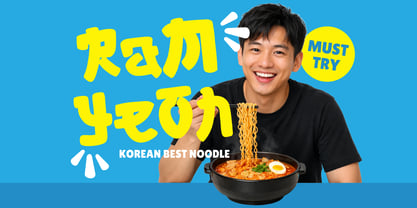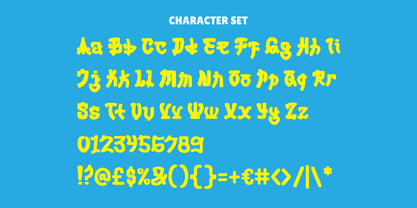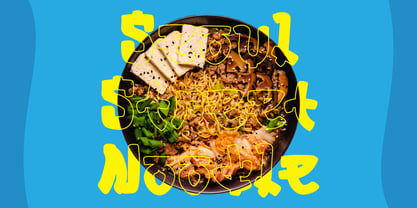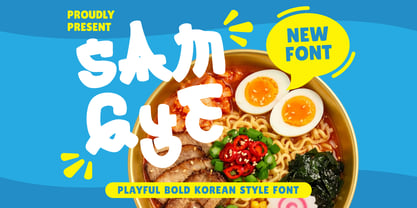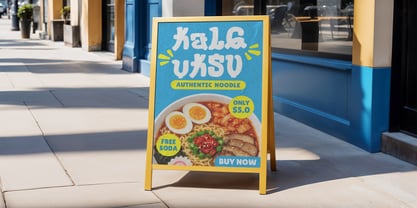
Samgye Style
by Shanaf
The Samgye Style Font Family was designed by Yesie Erma Yunita and published by Shanaf. Samgye Style contains 1 styles. More about this family
Samgye Style Bold Korean Style Font is a playful display typeface inspired by Korean street food culture. The letterforms appear thick, rounded, and slightly irregular with soft organic curves. Each character uses bold strokes that create a strong and friendly visual impact. The structure feels hand drawn with uneven edges that add personality and energy. The height proportions remain balanced, while the stroke thickness keeps the text readable. Rounded terminals and soft shapes enhance the casual and expressive character. Samgye Style Bold Korean Style Font blends playful typography with modern display style. The design communicates warmth, fun, and culinary culture. This typeface suits food branding, restaurant logos, and Asian themed visual identity. The bold and playful shapes create an inviting tone for food related branding projects. Designers can use this typeface for restaurant logos, street food brands, and noodle shop identity. The thick structure ensures visibility on posters, menus, and promotional headlines. It works well for packaging labels, shop signage, and advertising graphics. The expressive form supports themes related to Korean cuisine and Asian food culture. Samgye Style Bold Korean Style Font also fits poster titles, magazine headlines, book covers, stickers, and greeting cards. Businesses such as Korean restaurants, ramen shops, food markets, and Asian culinary brands can build memorable branding using this typeface.